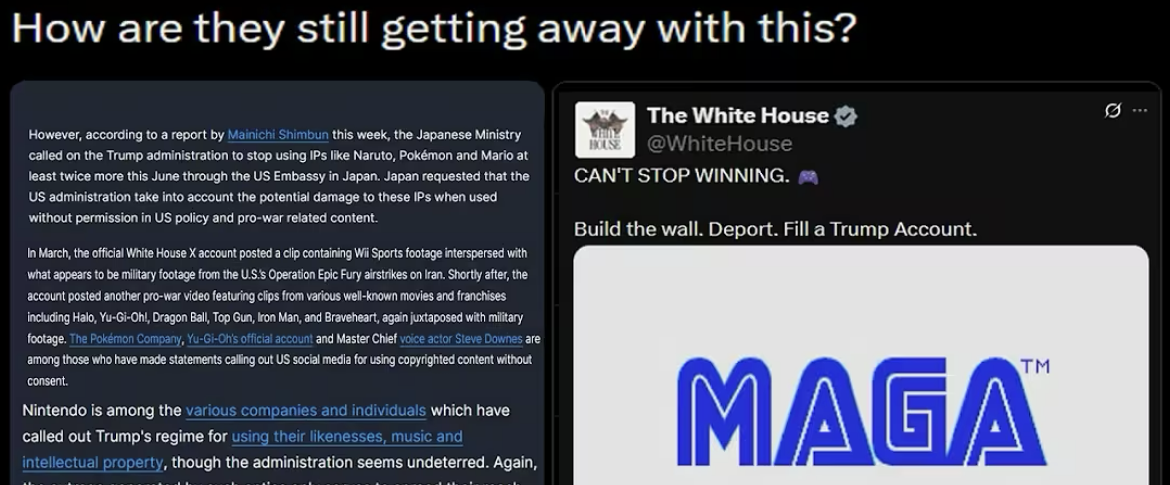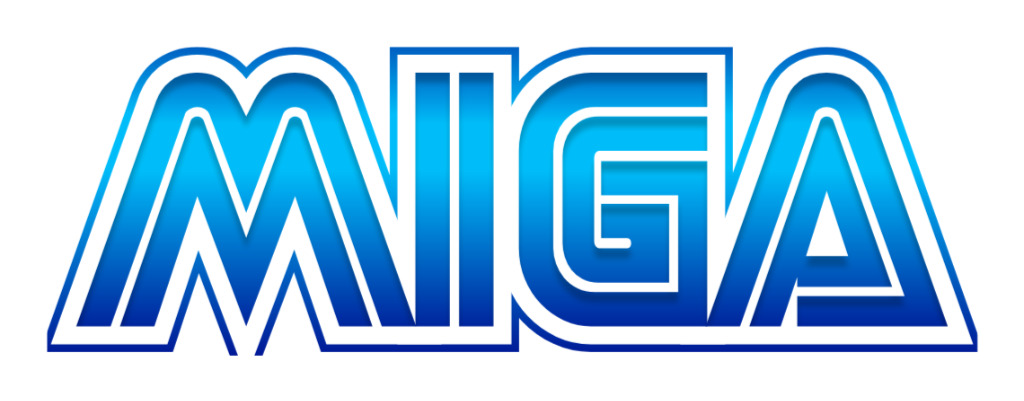
YOU CAN’T JUST USE A FONT WITHOUT PERMISSION
WHERE’S YOUR LICENSE??
SOMEONE DO SOMETHING
If he had used nintendos font, he would have a lawsuit in under 24 hours.
Parody. Same thing that makes it legal to draw manga of Princess Peach. Fair use.
TRUMP NUMBER ONE FONT MEISTER WOO HOO
you could argue parody on the title screen
probably not so much using the sonic the hedgehog music with no changes
Yagi double font.
Sega has no claim to it, it was a common font of the 70s.